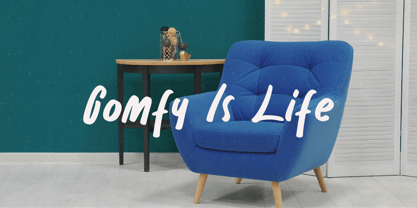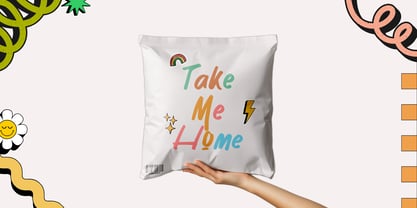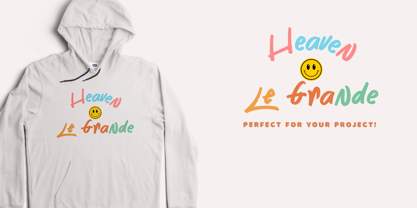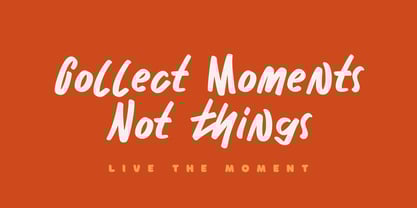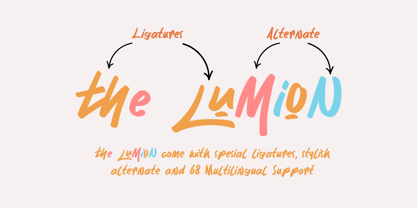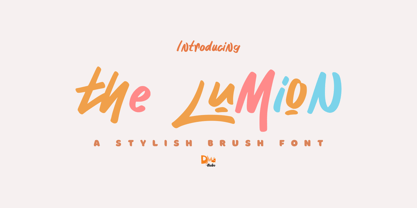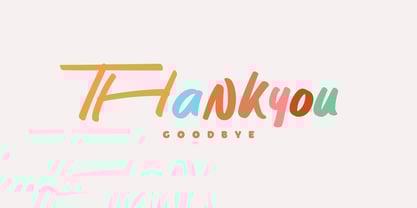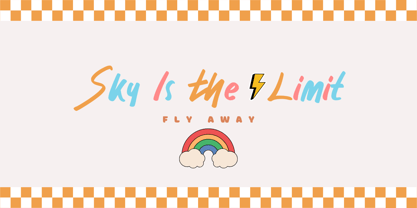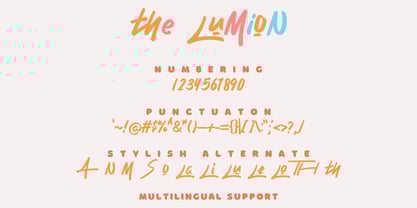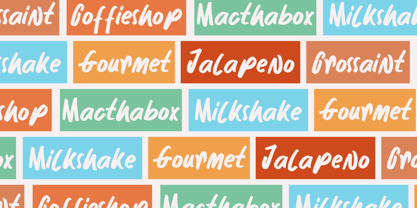
The Lumion
by DM Studio
The The Lumion Font Family was designed by Dimas Prasetyo and published by DM Studio. The Lumion contains 1 styles.
The Lumion is a bold and stylish brush font that exudes energy and creativity. Designed with expressive strokes and a handcrafted feel, this font is perfect for branding, posters, social media, packaging, and artistic projects. Whether you're designing a modern logo, a trendy apparel print, or eye-catching advertisements, The Lumion adds a dynamic and unique touch to your typography.
Features:
• Stylish Brush Design: Handcrafted strokes with a natural and dynamic flow.
• Versatile Application: Perfect for branding, social media graphics, posters, merchandise, and more.
• High-Quality Lettering: Designed for a smooth and professional finish in both print and digital formats.
• Uppercase and Lowercase Letters: Provides flexibility for creative compositions.
• Ligatures and Special Characters: Enhances visual appeal with unique letter combinations.
• Punctuation and Symbols: A comprehensive set for professional use.